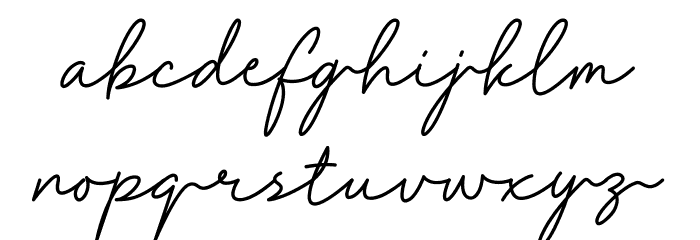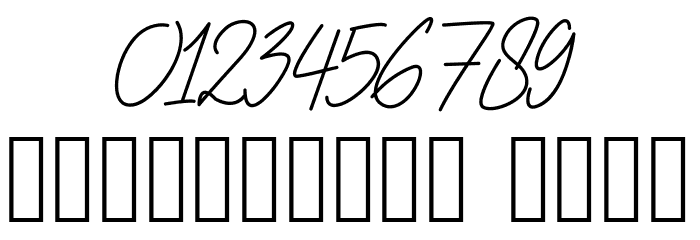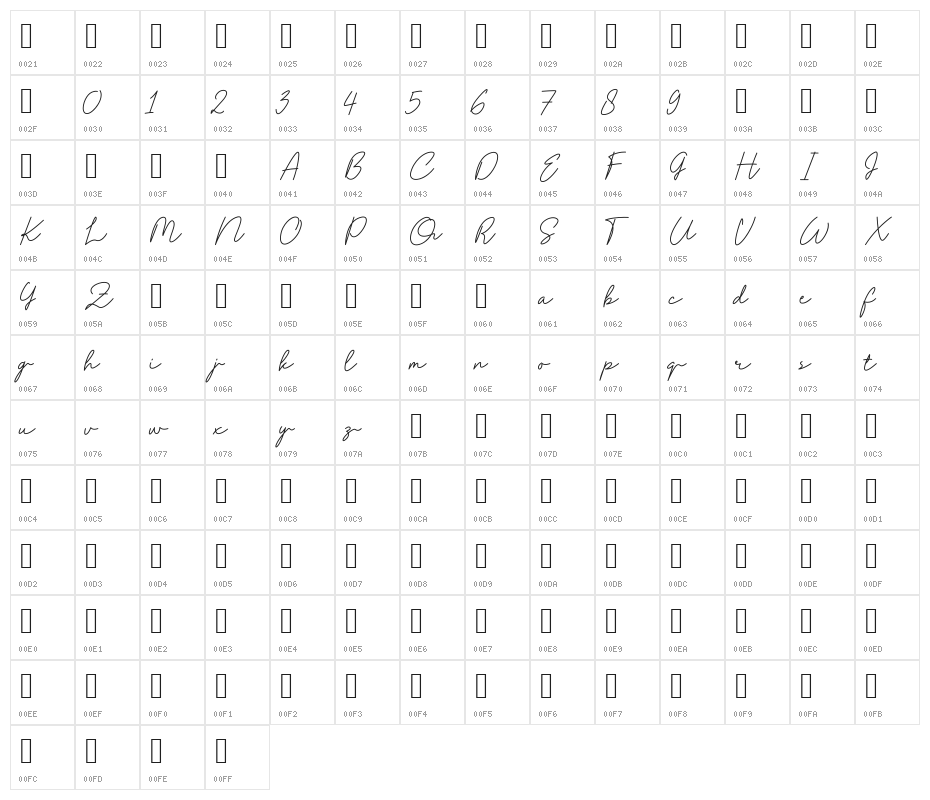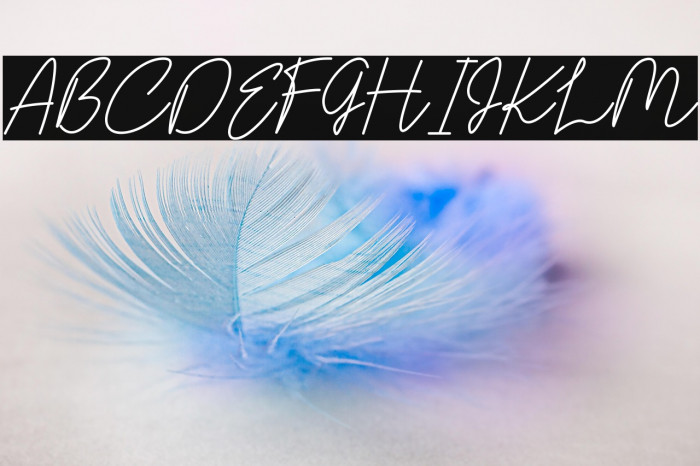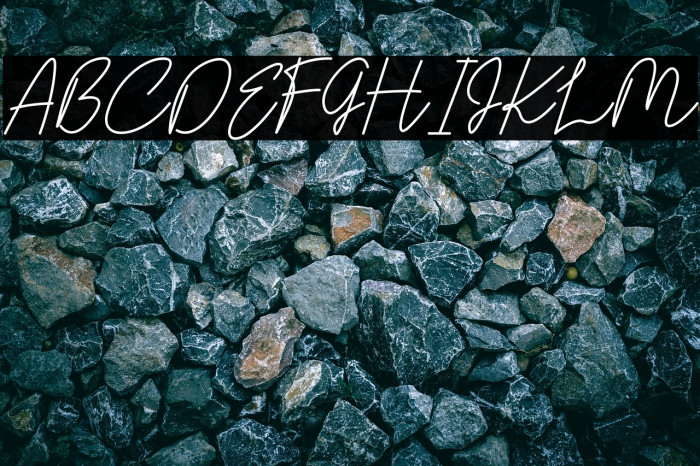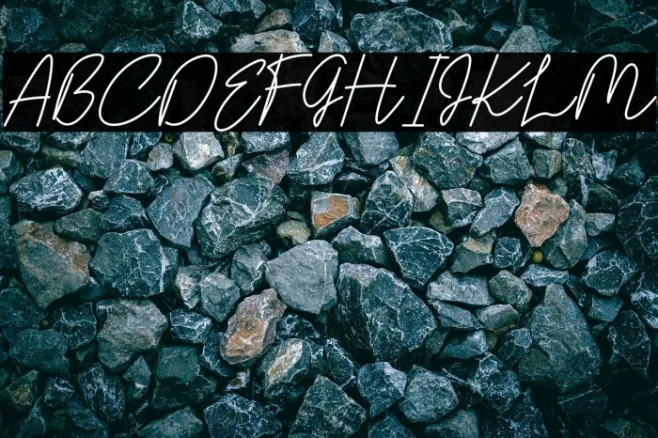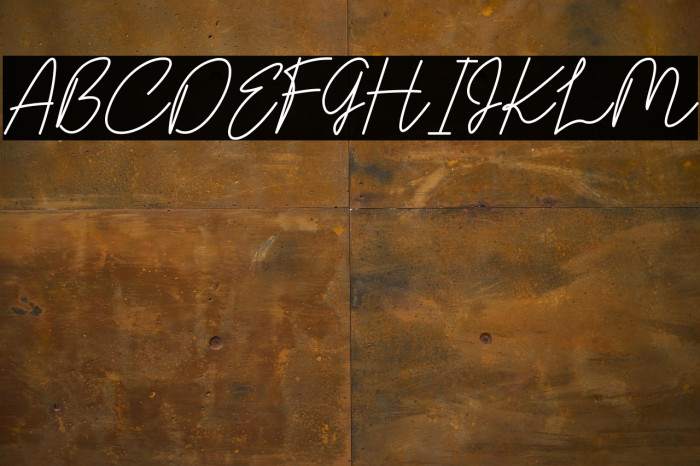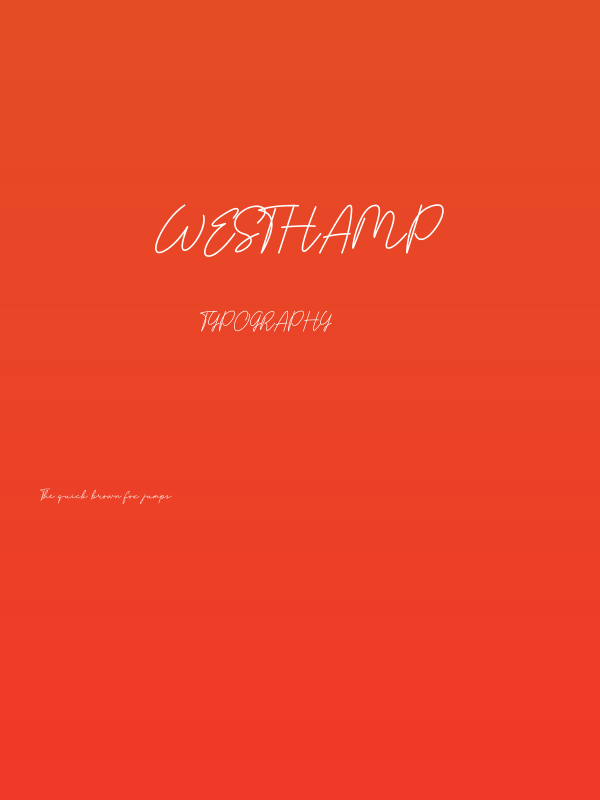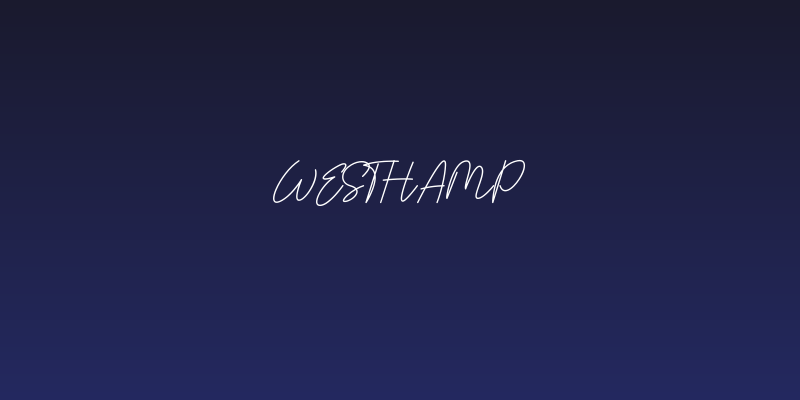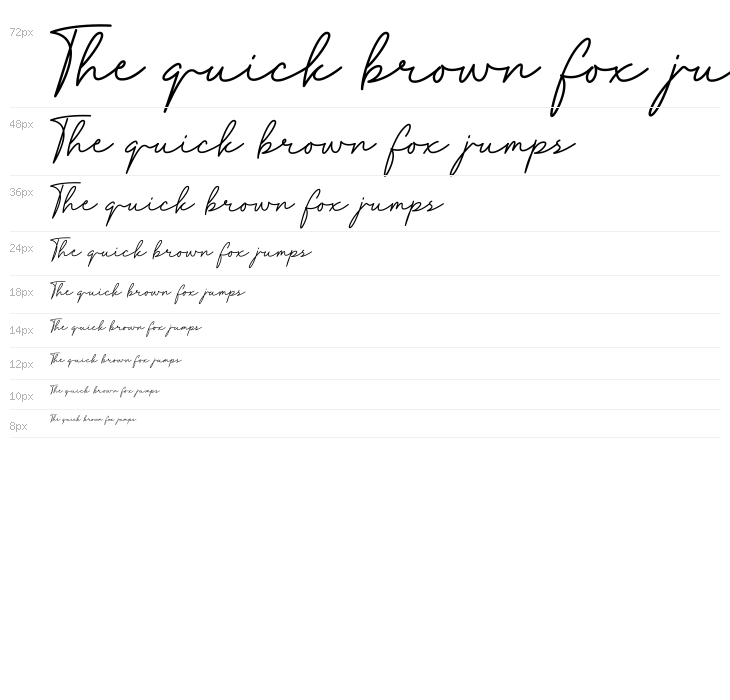
Westhamp Font
This font features an elegant, flowing script style that mimics natural handwriting. The letters are connected, creating a seamless and fluid appearance. The uppercase characters are slightly larger and more pronounced, while the lowercase letters maintain a consistent, smooth flow. The numerals are distinct yet harmonize well with the overall script style. The font's delicate lines and curves give it a sophisticated and graceful look, making it suitable for projects that require a personal touch. The special characters are not visible, indicating a focus on the alphabet and numerals.
A graceful, flowing script font with a handwritten style.
- Font: Westhamp
- Proposed Projects: Ideal for wedding invitations, greeting cards, personal branding, and elegant logo designs.
- Category: Script
- Character Spacing: Tight
- Overall Style: Elegant, Handwritten
- Use Case: Logos, Invitations, Personal Branding